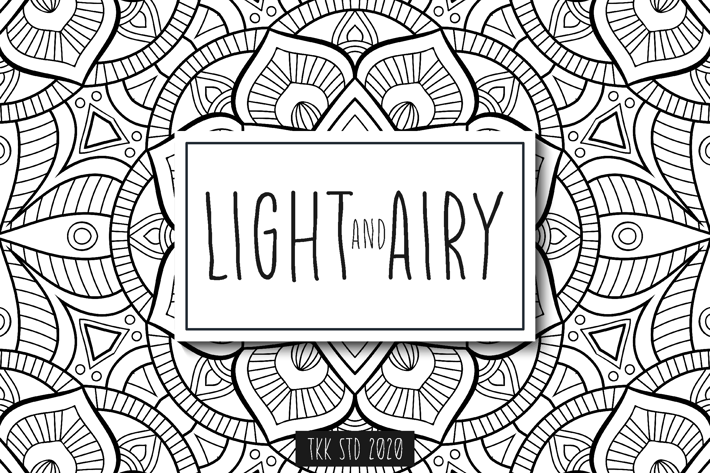
Light And Airy - Flower and Cute Girly Font
LIGHT & AIRY – A Soft, Elegant Handwritten Typeface
Light and Airy is a delicate handwritten kids line font designed with tall proportions, soft terminals, and a naturally relaxed flow—perfect for creators who want to infuse a breezy, handcrafted look into their designs. With its organic and free-spirited vibe, this expressive typeface effortlessly fits into the world of boho aesthetics, minimal branding, and lifestyle editorial spreads.
Bring Boho Calm to Your Creative Projects
Whether you're building a visual identity for a handmade shop or setting moodboards for a modern lifestyle blog, Light and Airy delivers a soothing handwritten touch that communicates warmth and intention. It’s a go-to font for personal branding, printable wall art, feminine journals, nursery quotes, and modern Instagram templates.
Designers love its calming personality—it tells a story of creativity, self-expression, and slow-living values. Use it to create space, serenity, and a signature vibe.
Key Features:
Soft character design with tall, narrow letters
Perfect spacing for light, airy compositions
Kid-friendly and parent-approved for educational or playful uses
Great readability even at smaller sizes
* Ideal for moodboards, product packaging, quotes, planners, and social media
Let Your Design Breathe